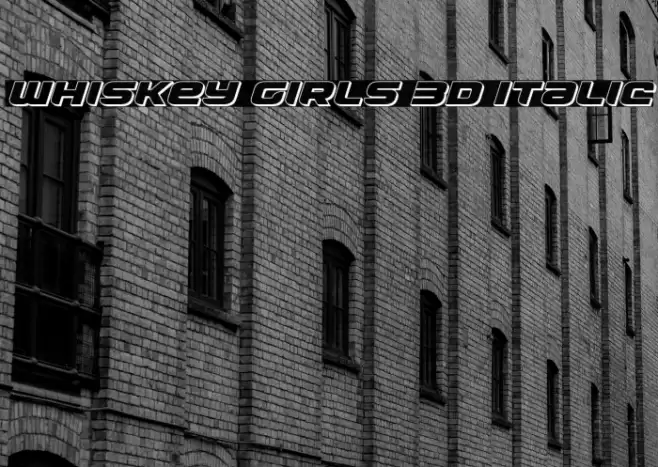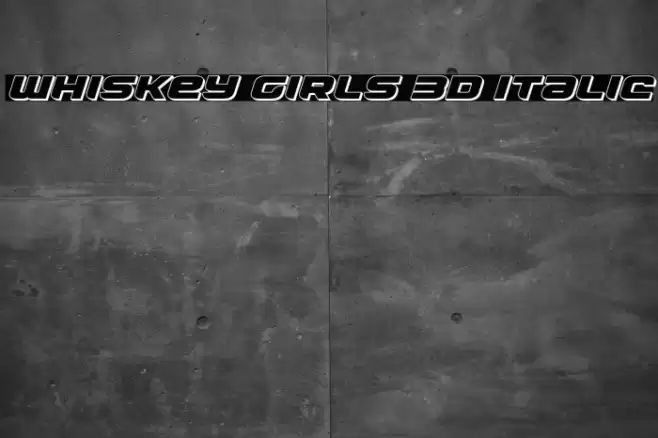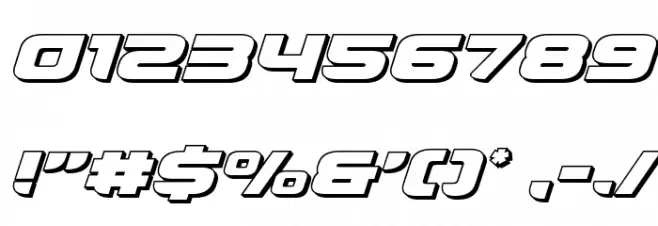
Whiskey Girls 3D Italic Font
Whiskey Girls 3D Italic Description
This font features a bold, three-dimensional style with a distinct italic slant, giving it a dynamic and modern appearance. The characters are outlined, creating a striking visual effect that enhances readability while maintaining a unique aesthetic. The uppercase and lowercase letters share a consistent design, with smooth curves and sharp angles that contribute to its futuristic look. The numerals and special characters are designed to match the overall style, ensuring a cohesive appearance across all text elements. This font is ideal for projects that require a bold statement and a touch of modern flair.
A bold, 3D italic font with outlined characters and a modern, dynamic style from Uncategorized fonts.
- Proposed Projects: Ideal for branding, advertising, posters, and any design project that requires a bold and modern aesthetic.